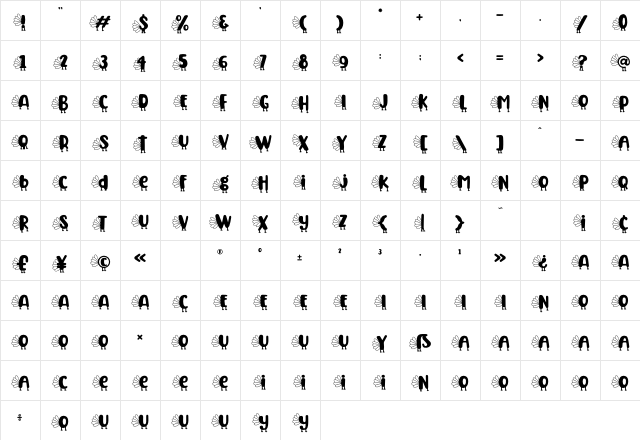
Complete Thanksgiving Joy Turkey Tail glyph index. Displaying only characters natively supported by Thanksgiving Joy Turkey Tail font.
Thanksgiving Joy is a composed and adaptable typeface that performs quietly and consistently across a wide range of design contexts.